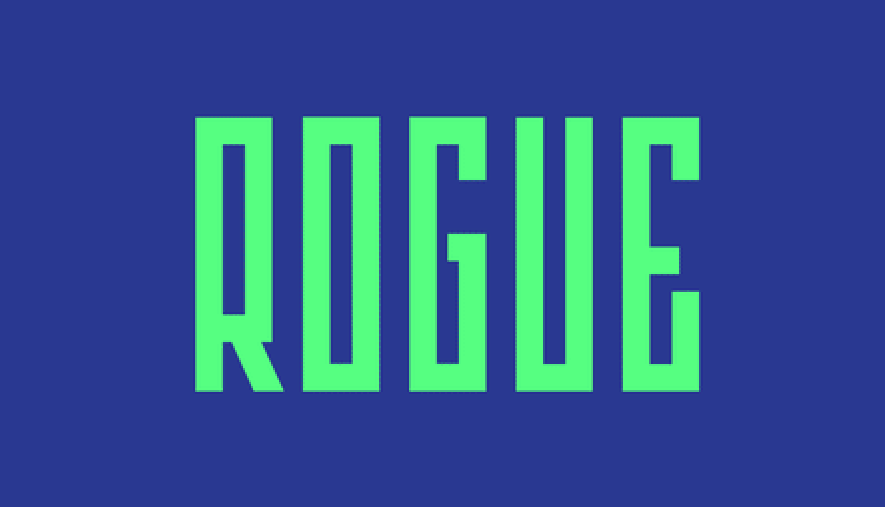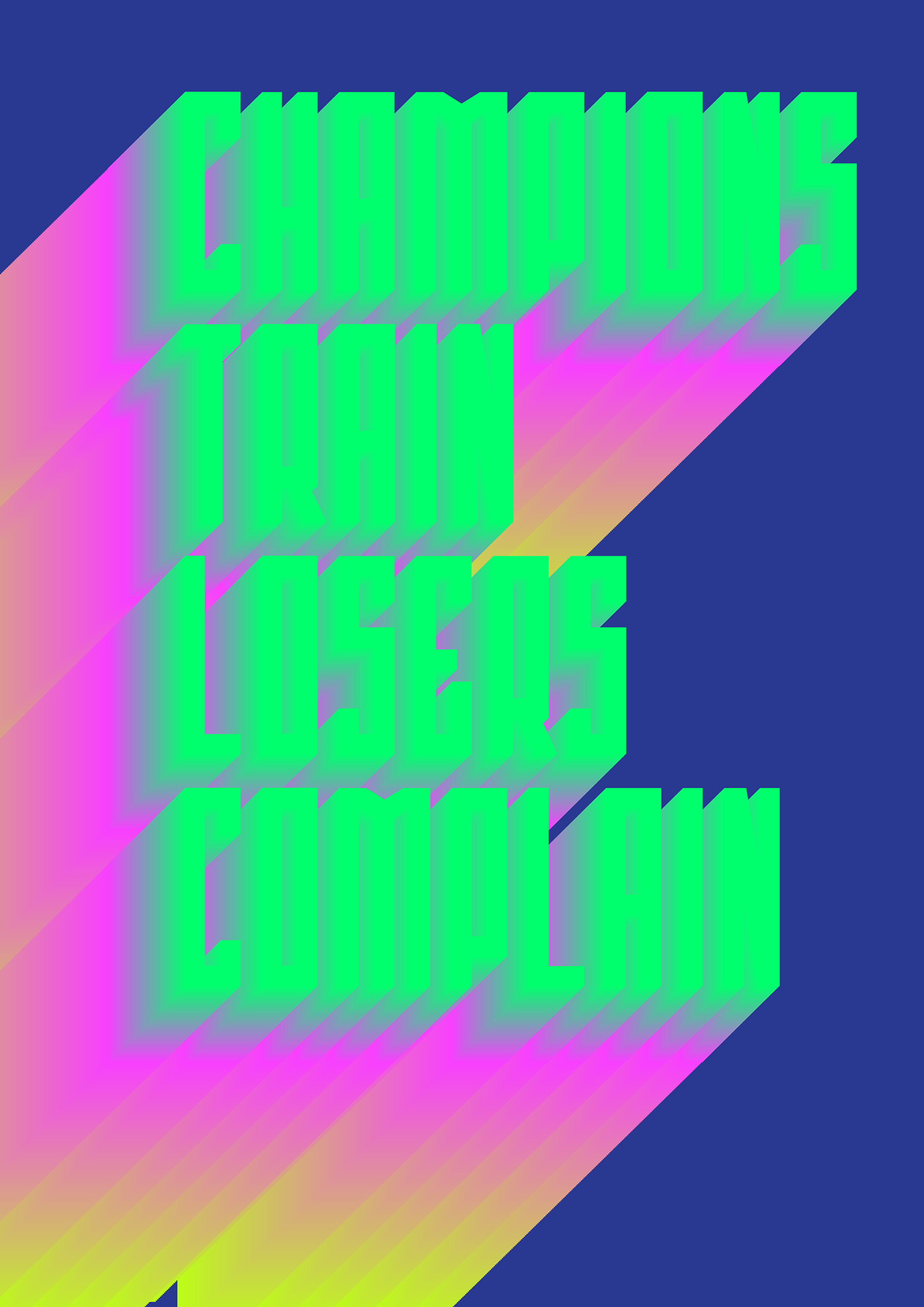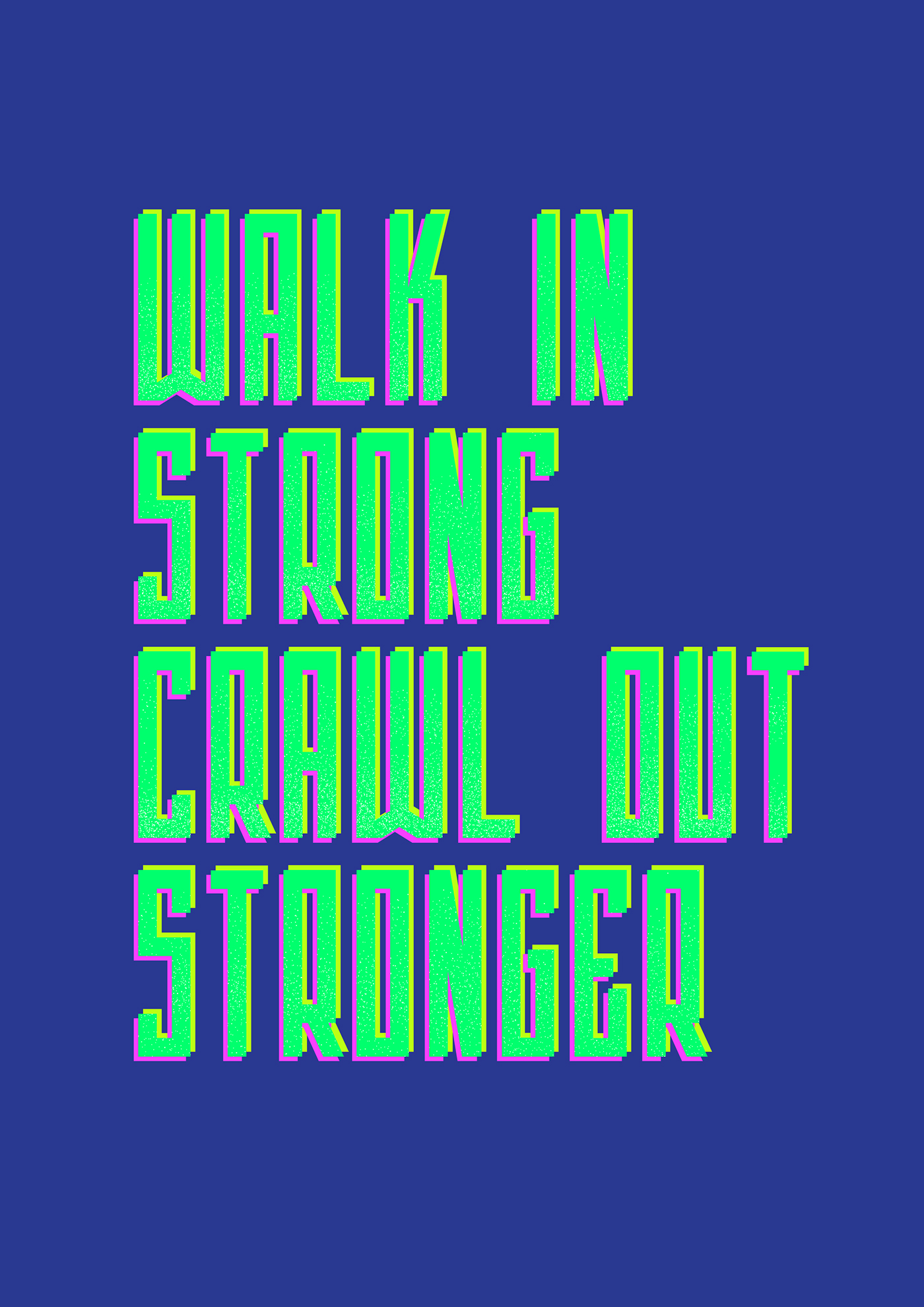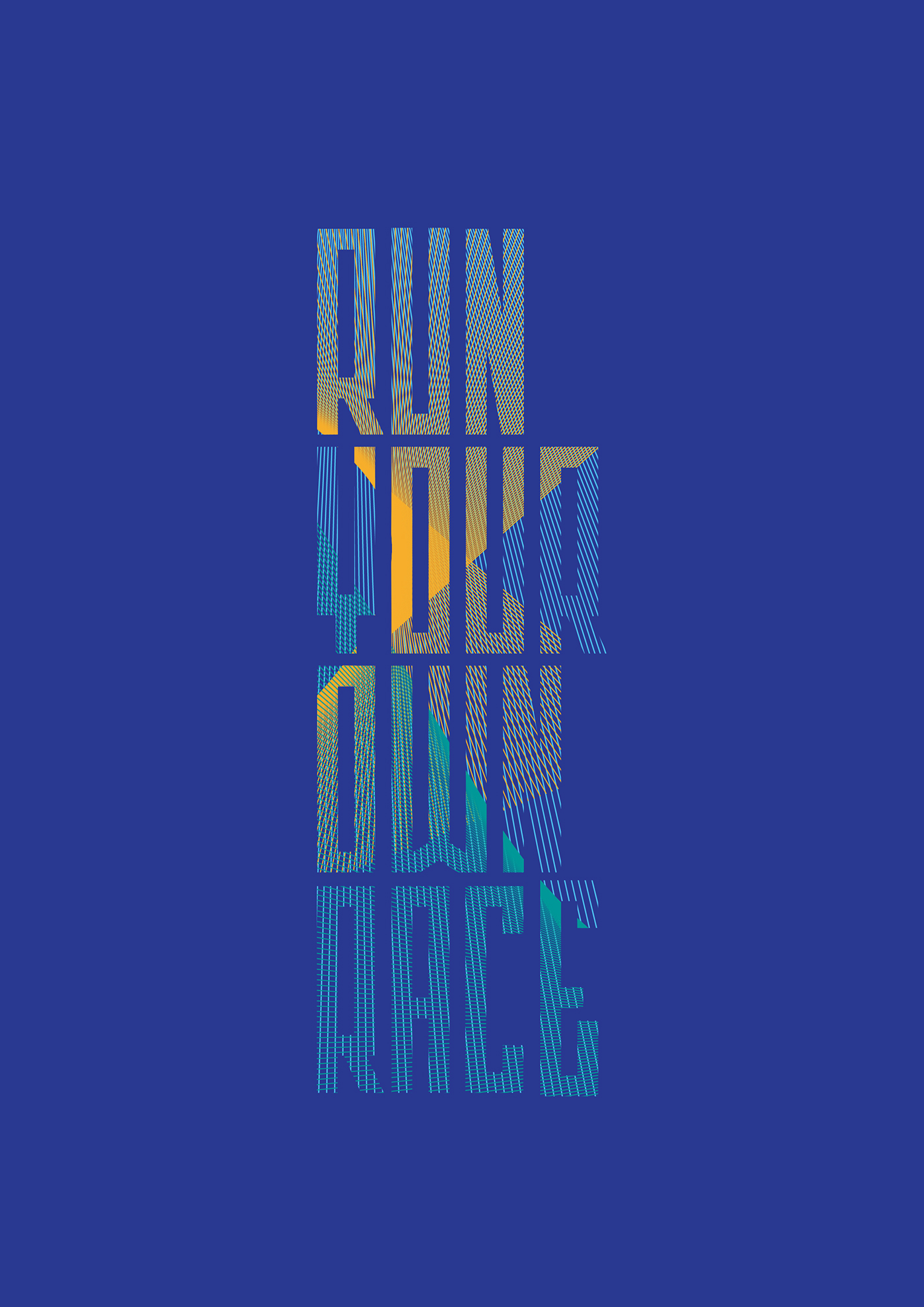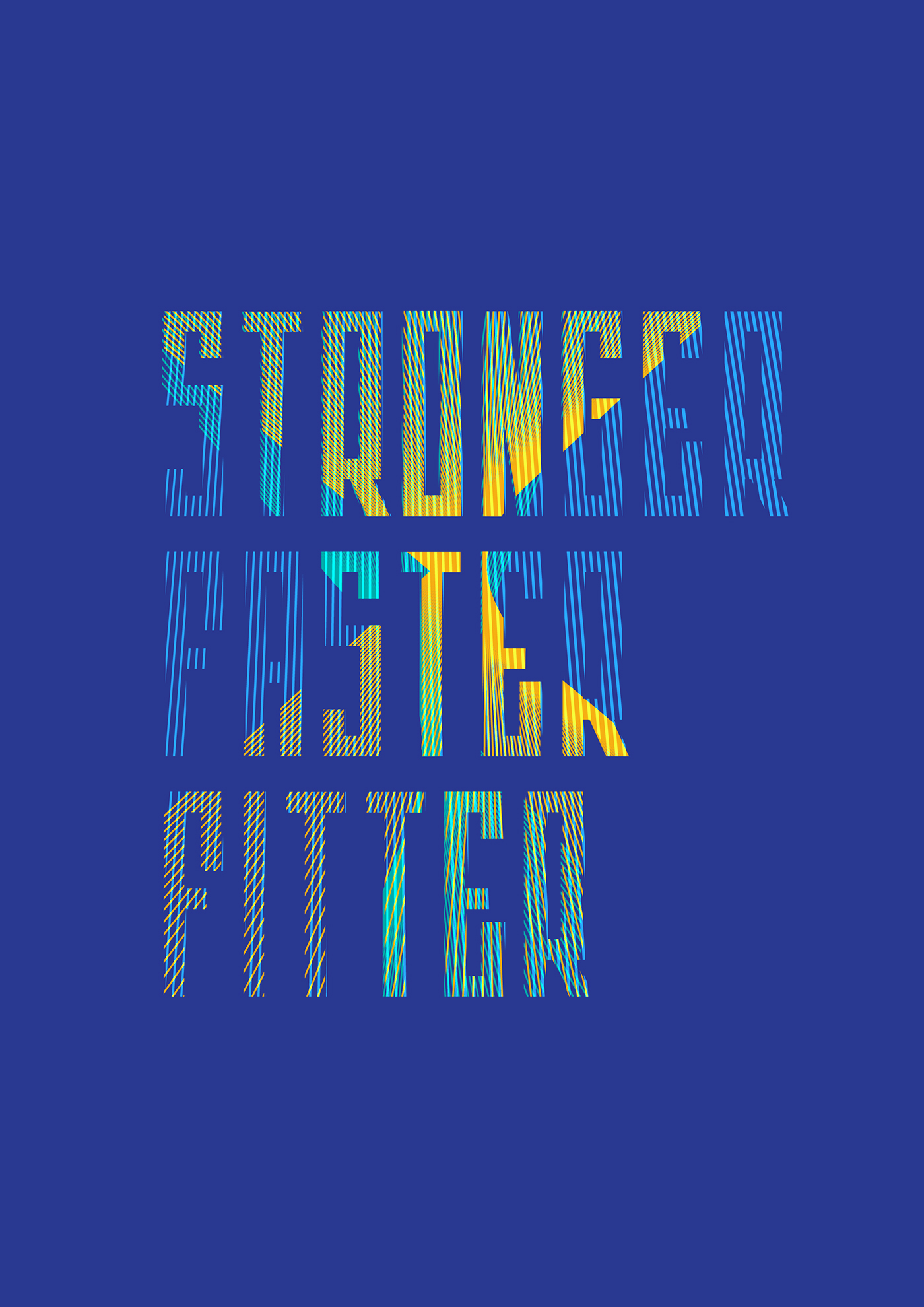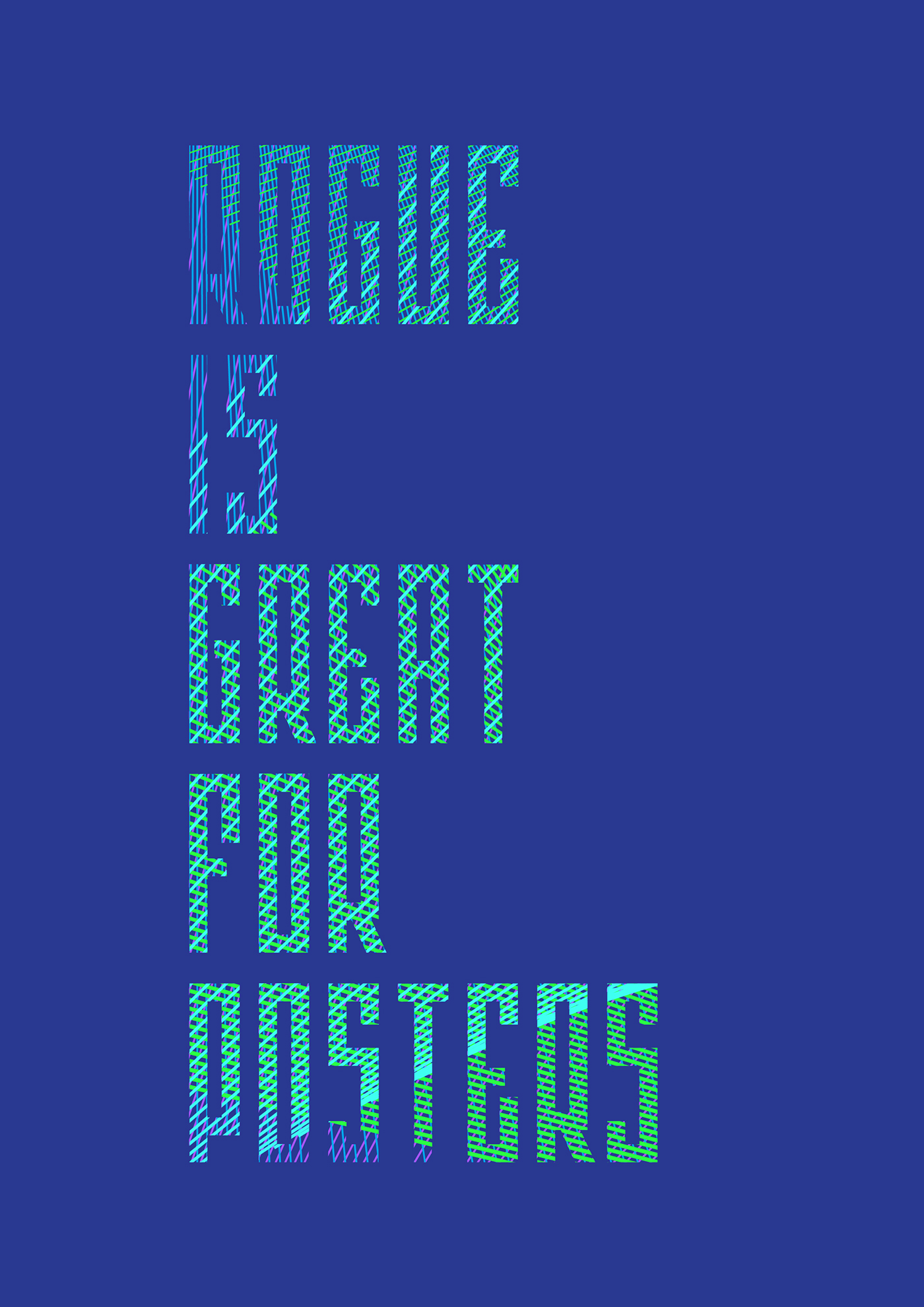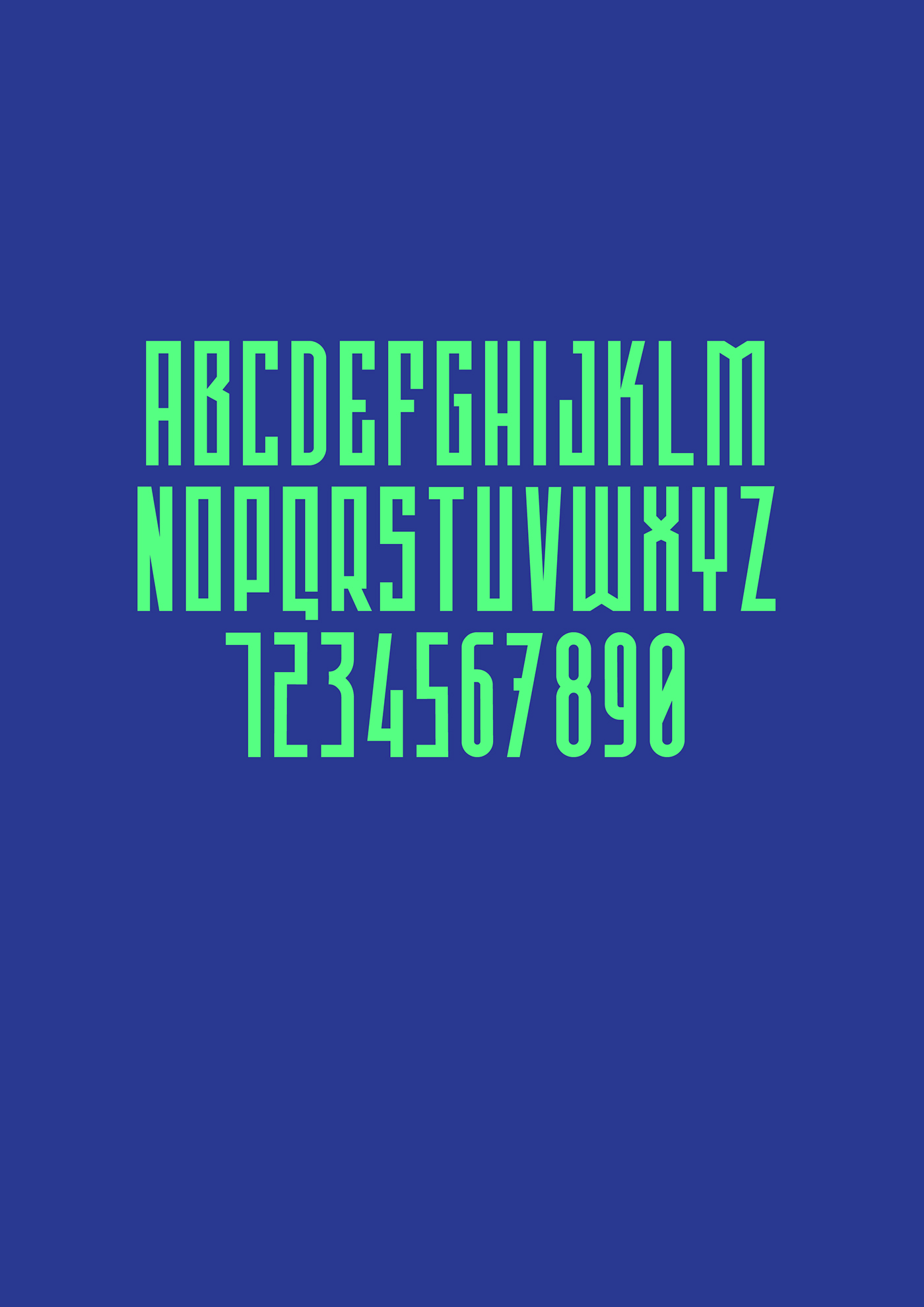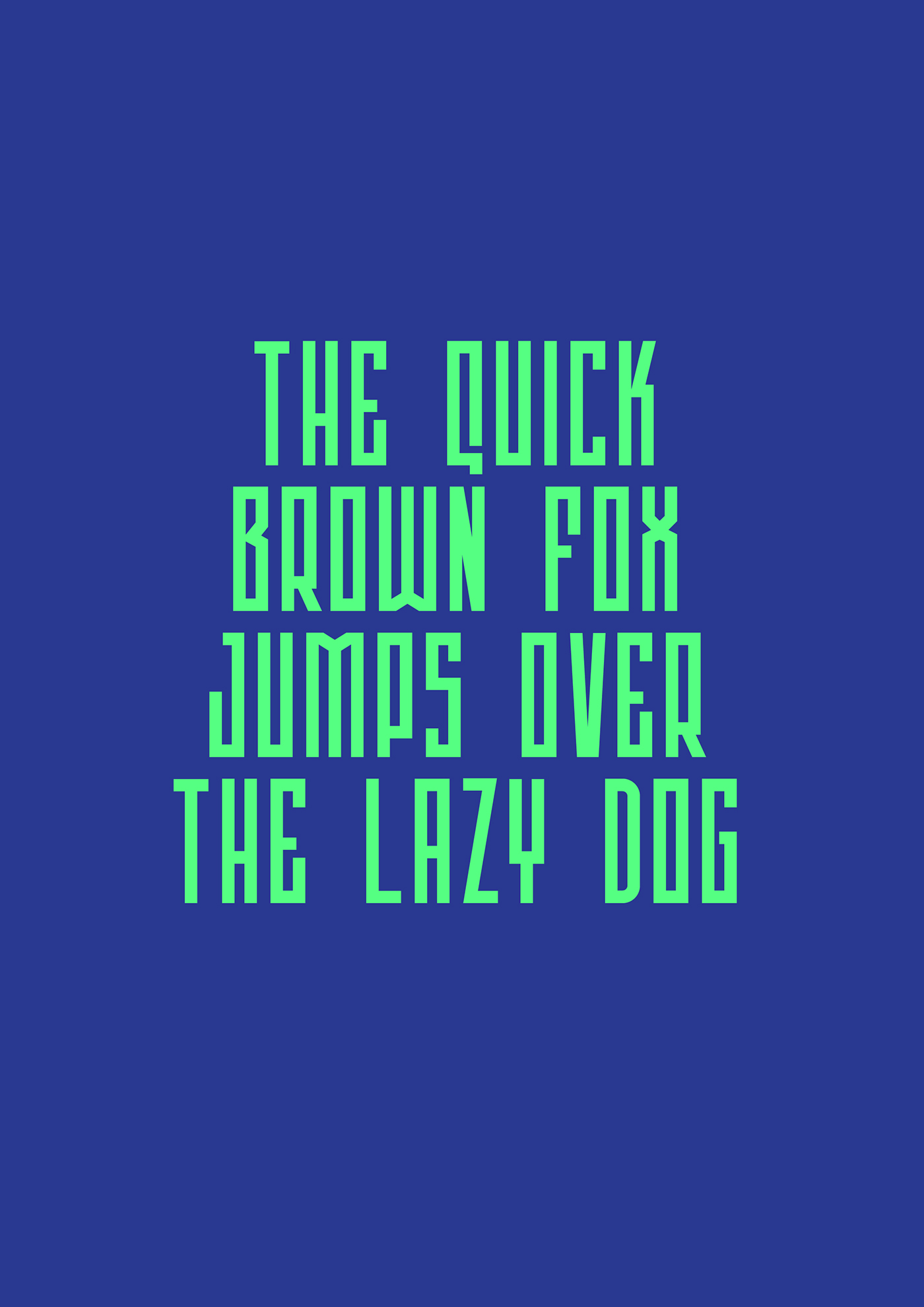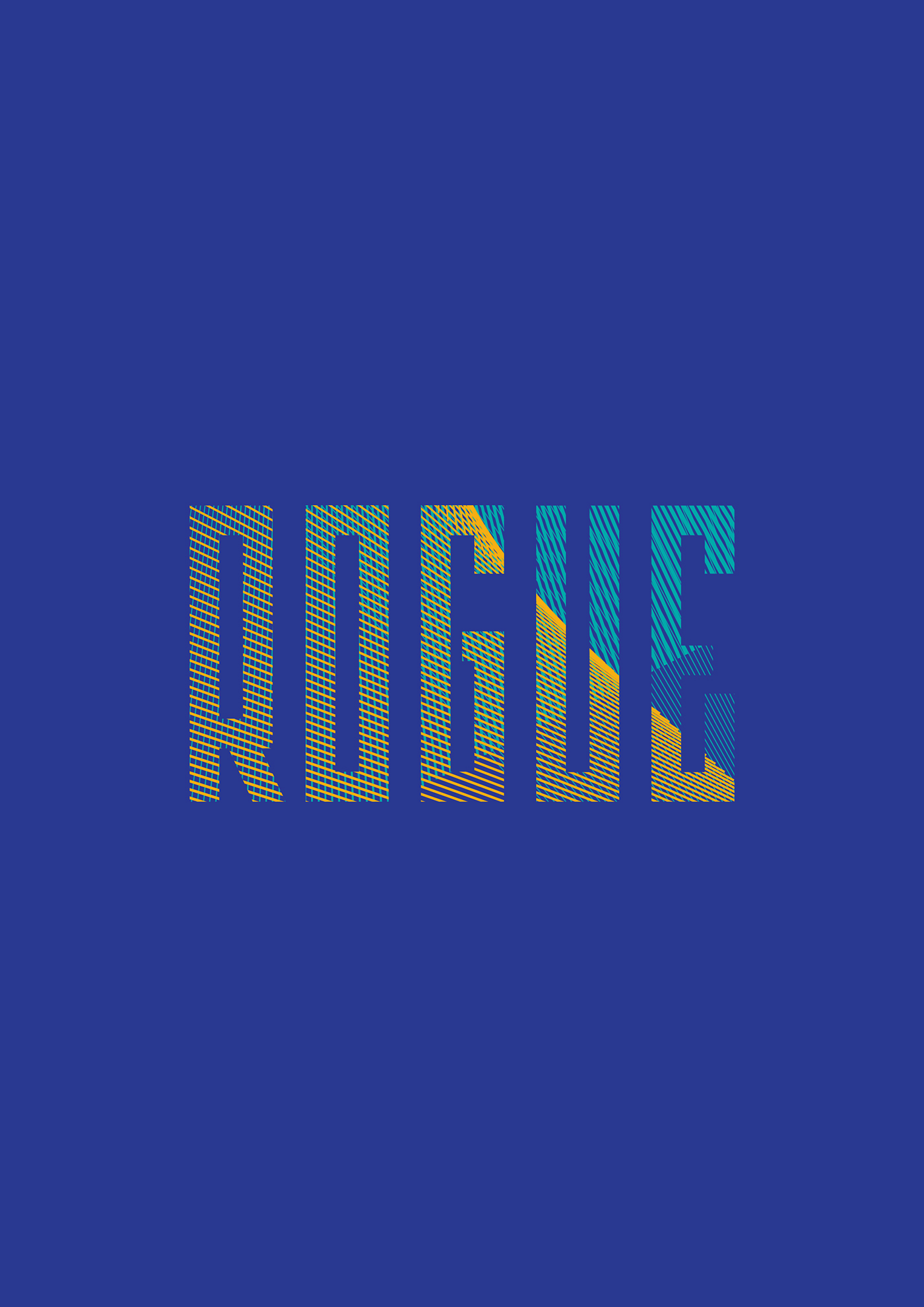
Designed by Andreas Leonidou from Cyprus, Rogue is a display font ideal for posters and titles. Rogue works great for sport ads and more. Download the free font beneath the previews: